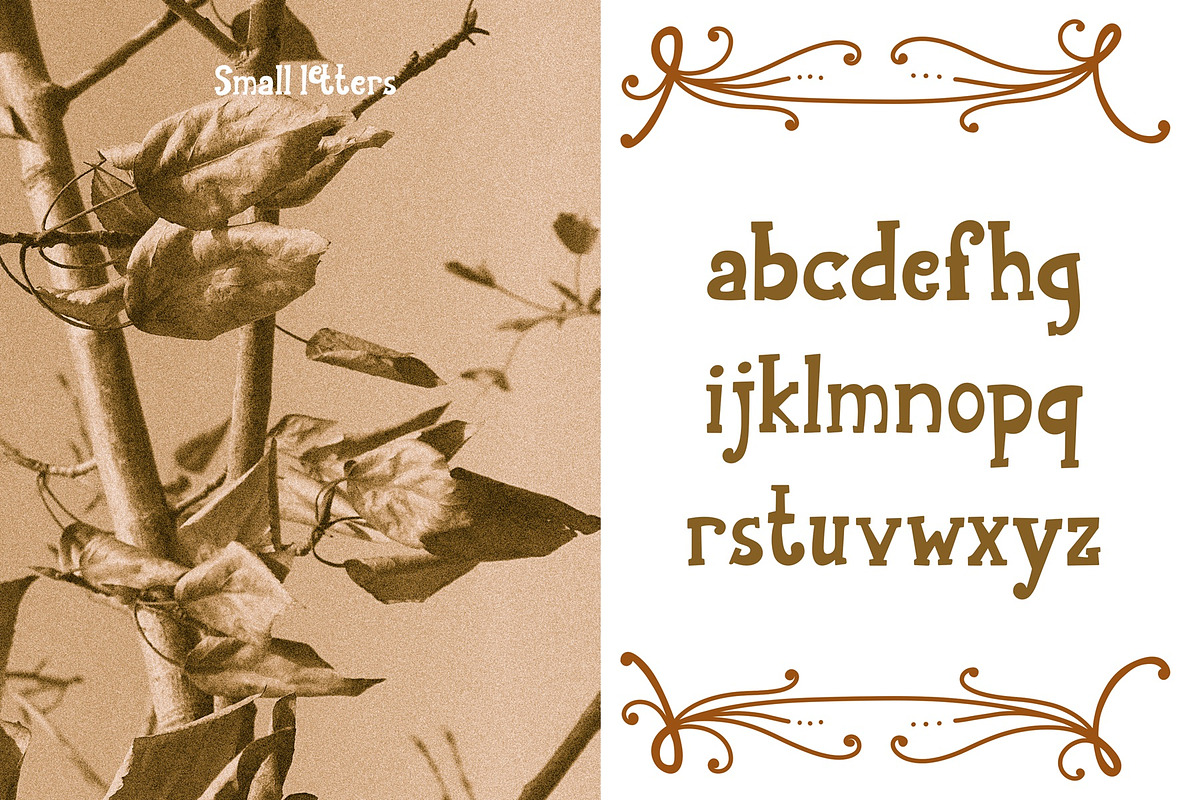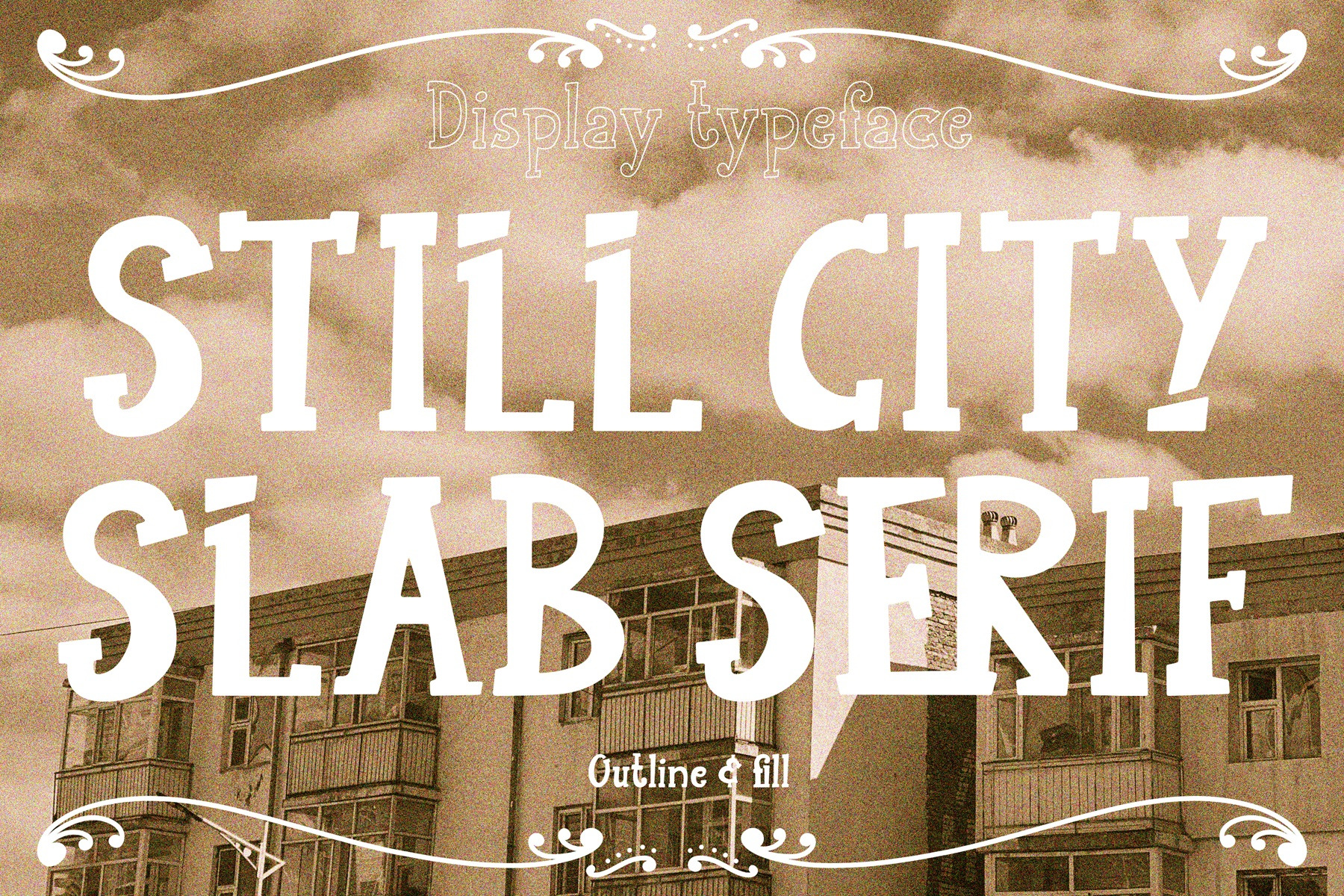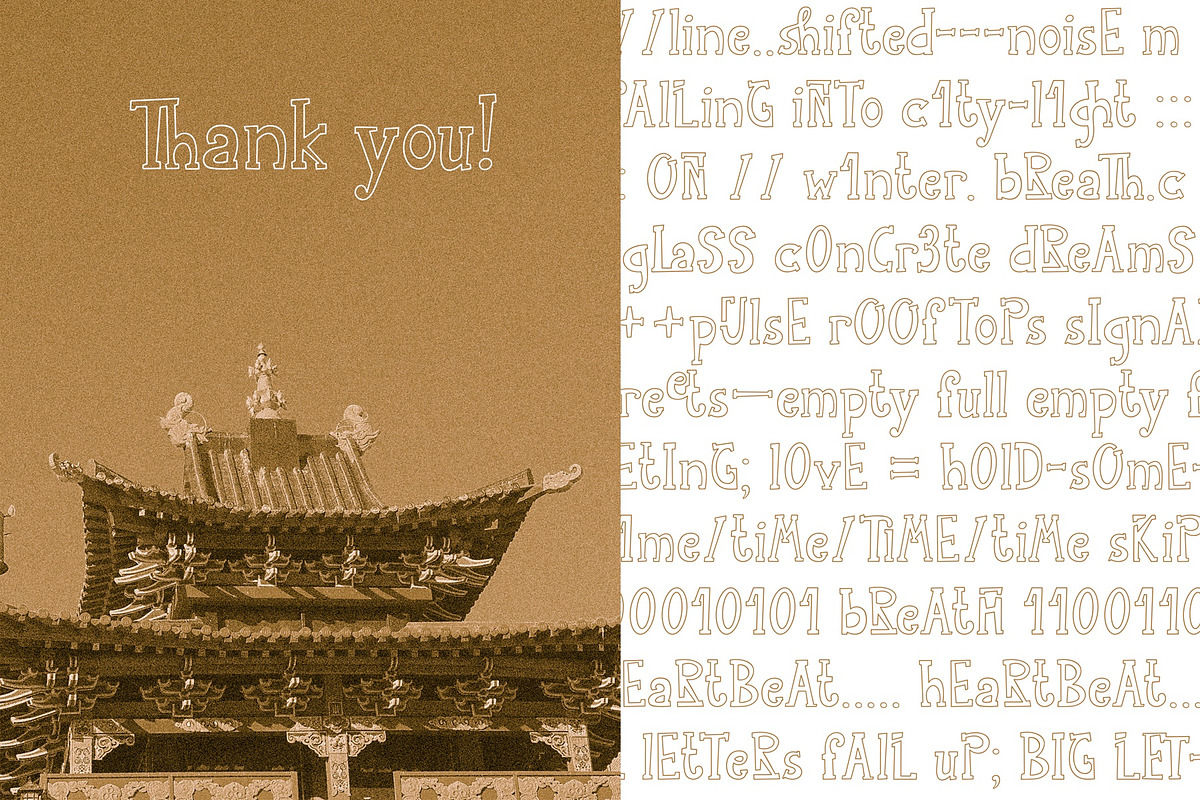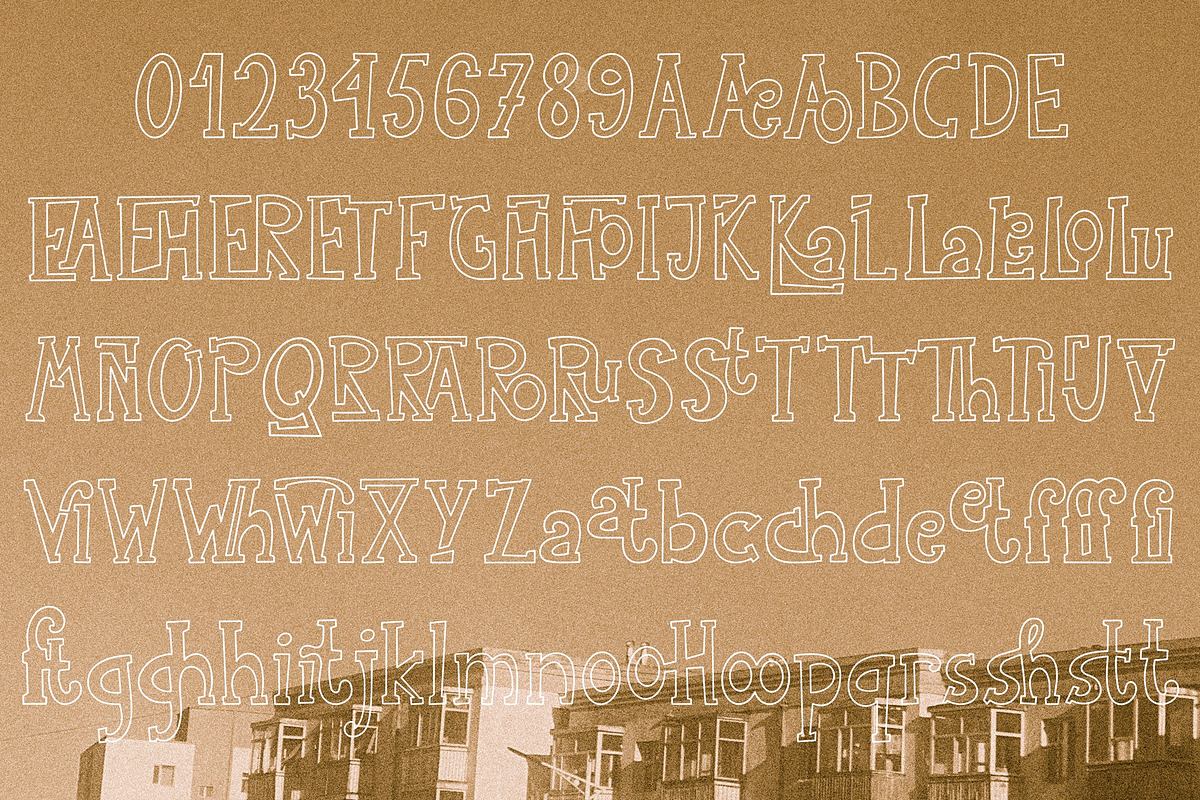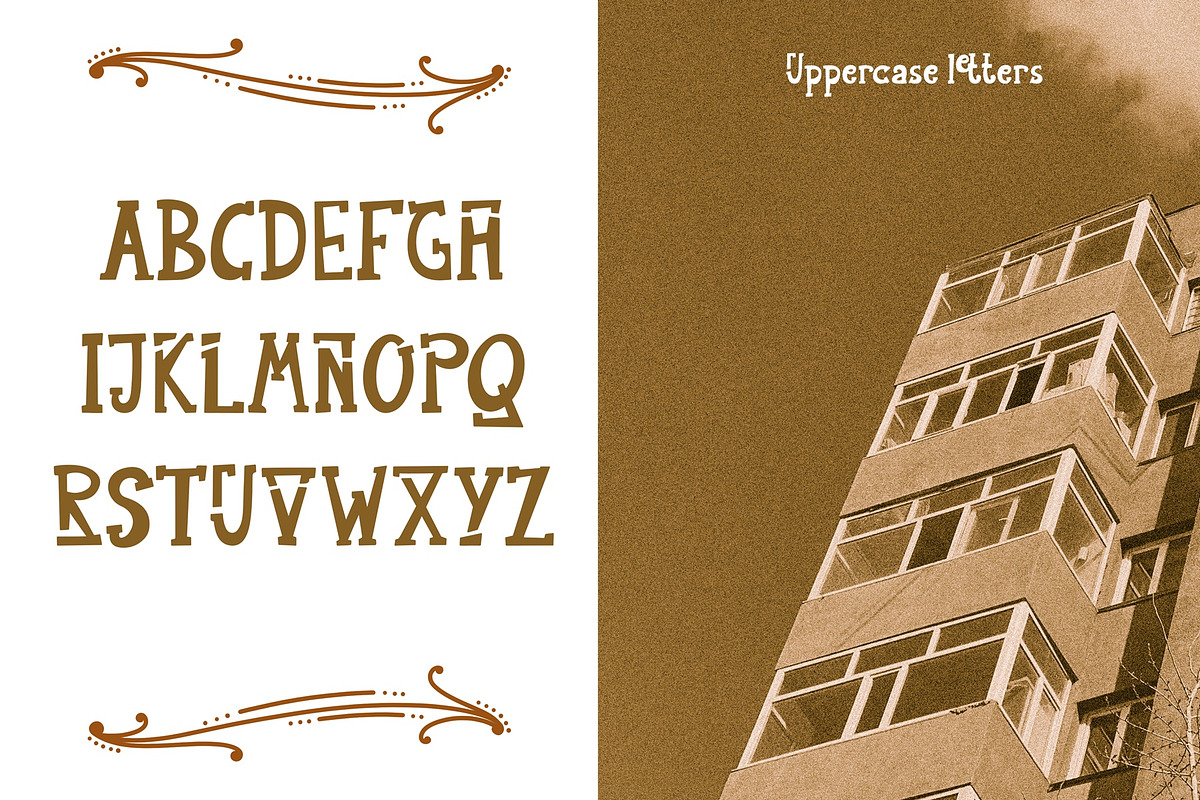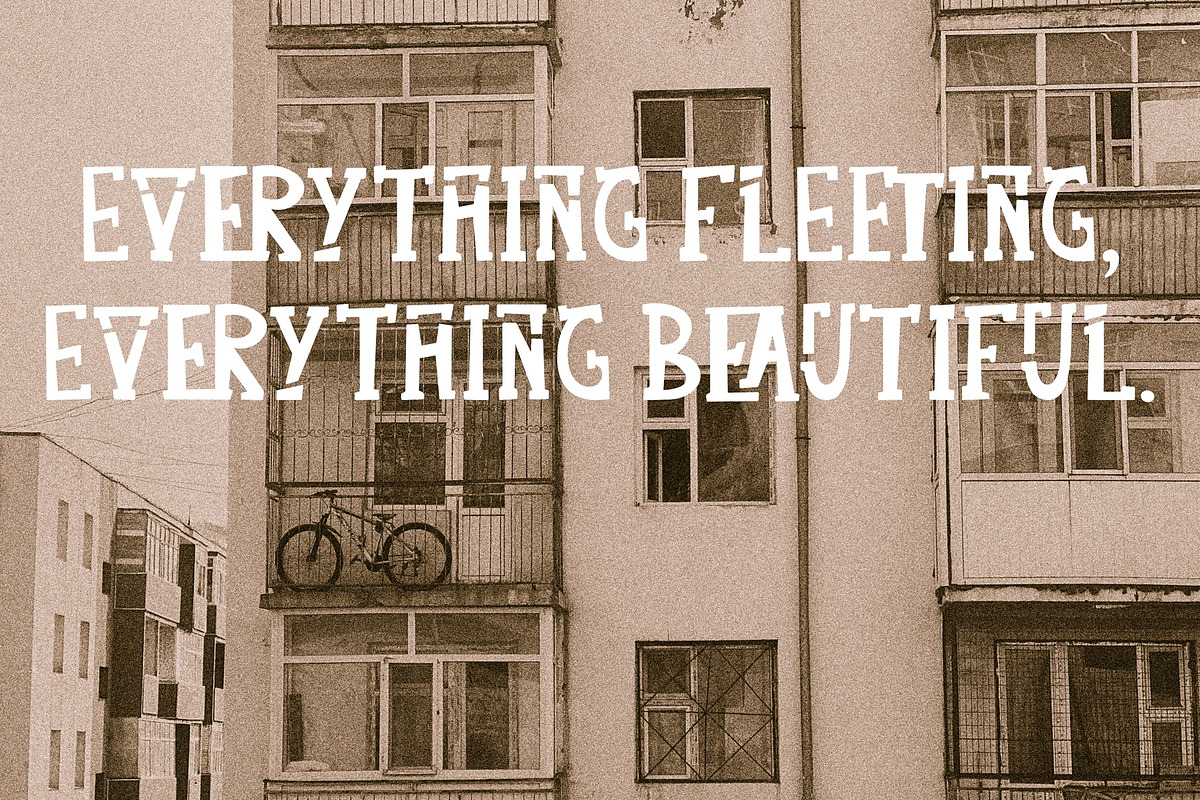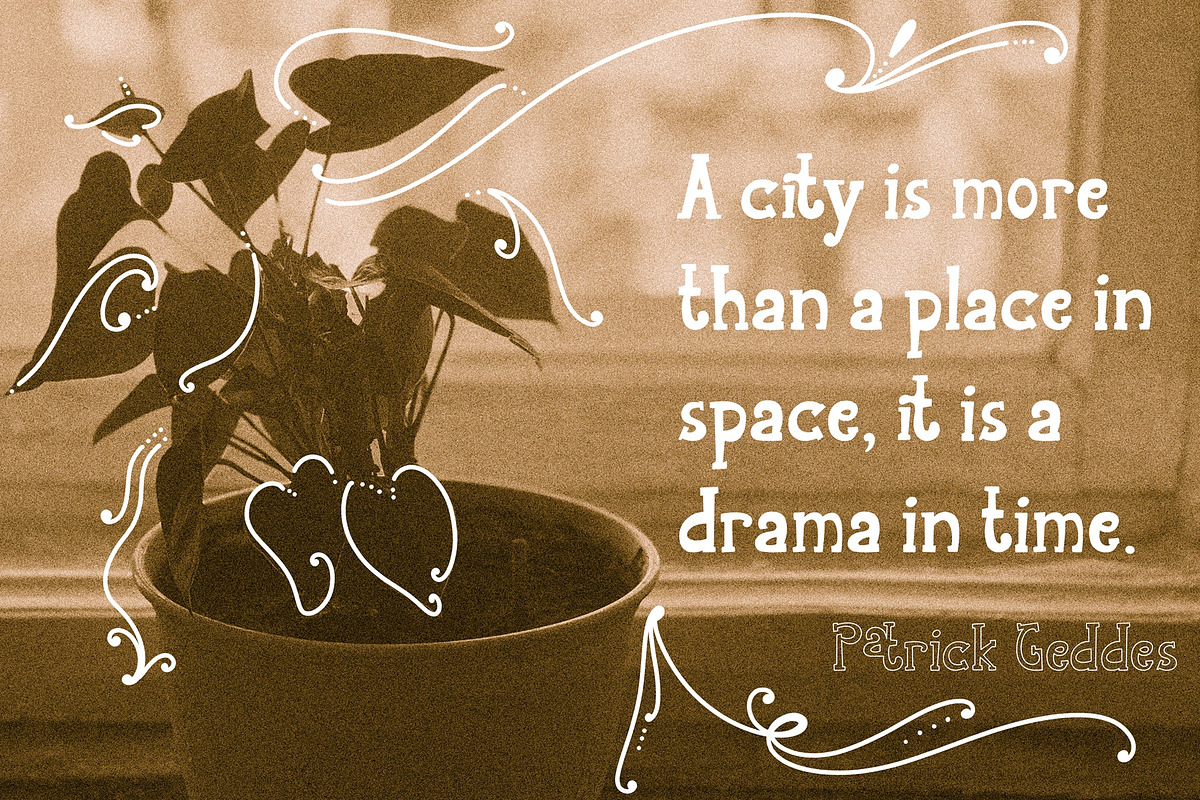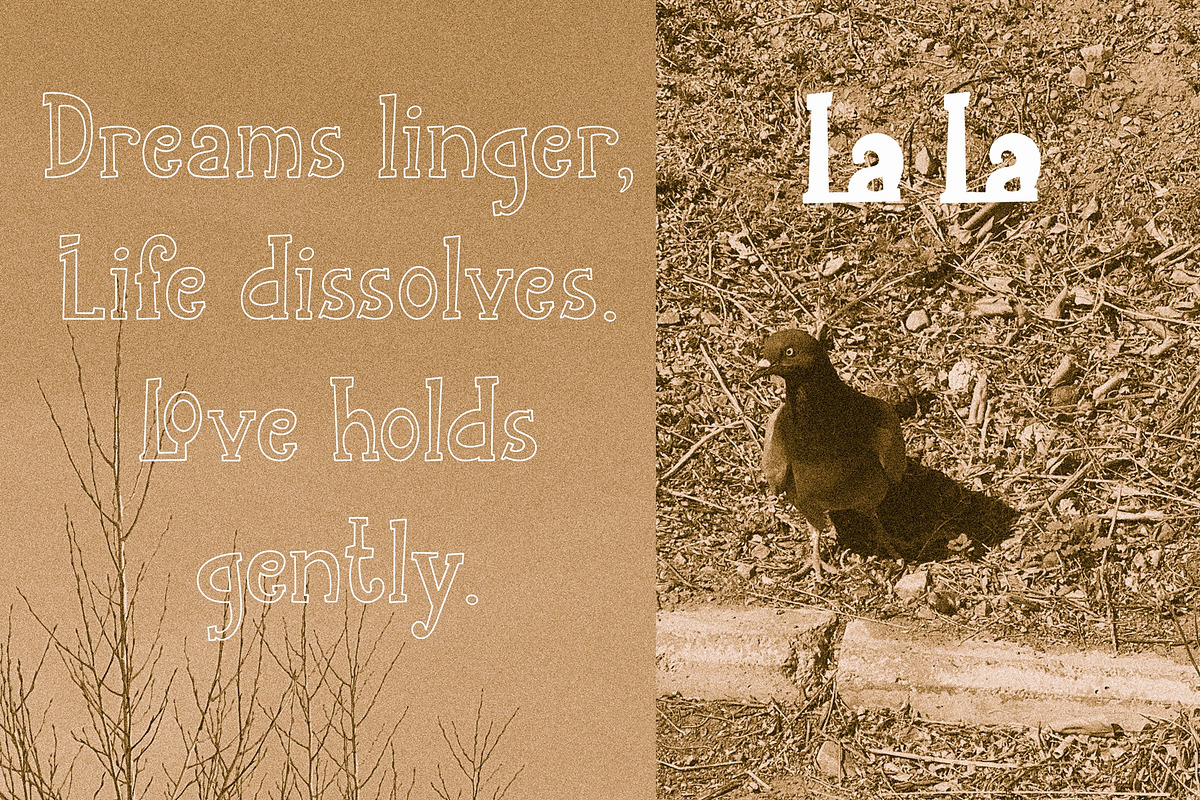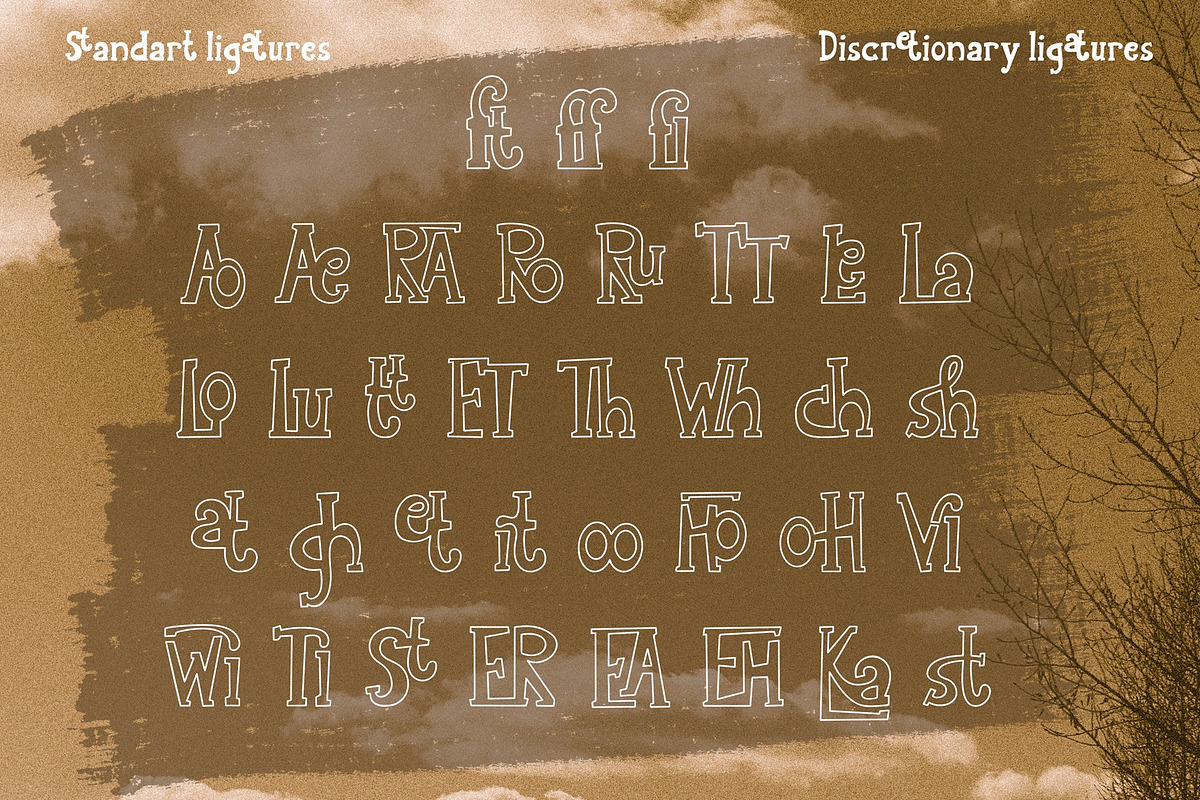
Still City Experimental serif font
Cozy Concrete "Still City" Slab Serif is an experimental display typeface inspired by the urban atmosphere of Ulaanbaatar—where concrete forms meet open space, soft light, and subtle imperfection.
Features both Fill and Outline styles with geometric forms and expressive ligatures in OTF format.
Designed to feel both structured and human. It avoids harsh industrial rigidity in favor of a warmer, more contemplative visual tone.
-Standard ligatures
-Discretionary ligatures
Designed for display use: headlines, branding, posters, editorial design, and logos
Cozy Concrete Slab Serif is ideal for designers seeking a typeface that sits between brutalist structure and emotional softness, where geometry feels alive, not mechanical.